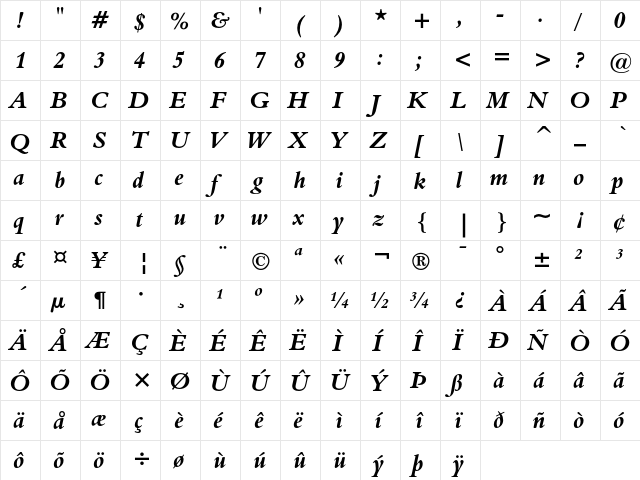
Aldine 401 Bold Italic
Design Context for Aldine 401 Typeface
Aldine 401 offers clean, dependable letterforms without strong stylistic allegiance, making it a practical choice for designers who need flexibility. The slanted form adds forward momentum and visual energy. Its bold stroke weight gives it real presence on the page.
Pro Tip: Use Aldine 401 for emphasis, pull quotes, and subheadings where its slanted energy can add rhythm to the layout.